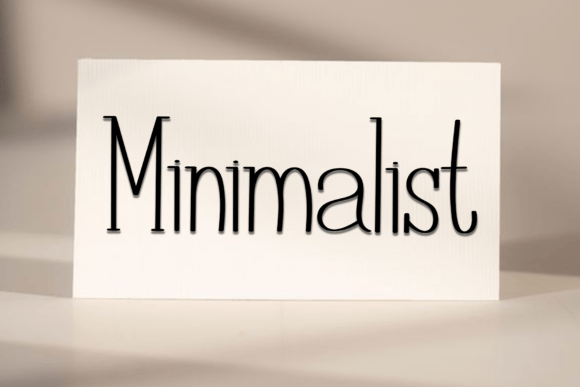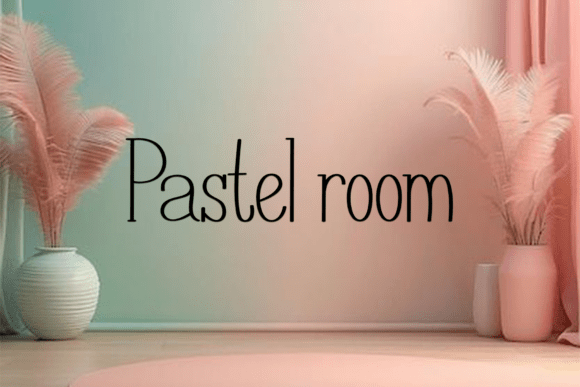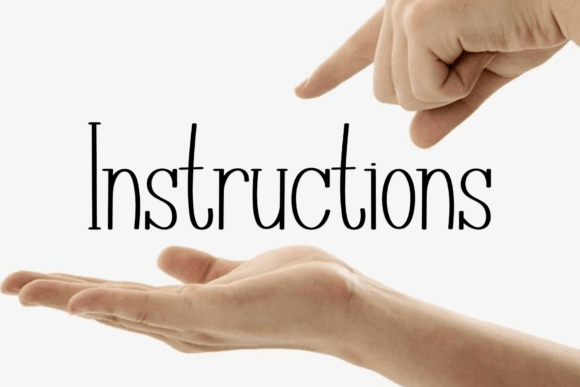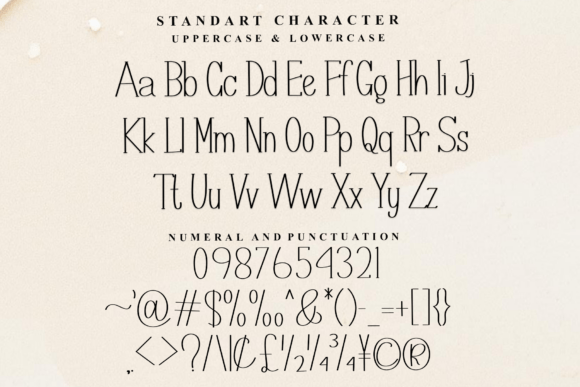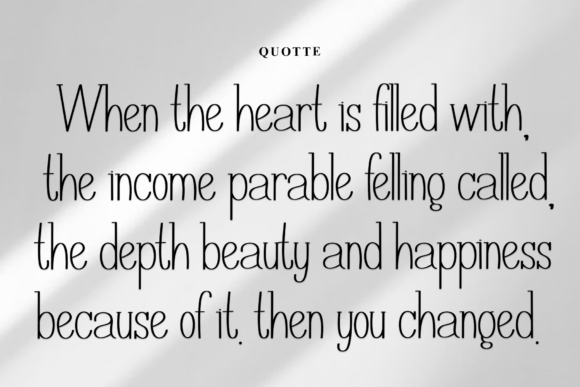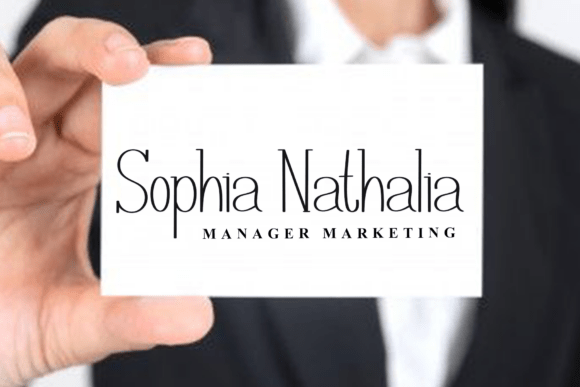
The Magic of Charming Font: Elevate Your Designs with Elegance
I’ll never forget the moment I stumbled upon the perfect font for a client’s wedding invitation project. I had been searching for hours, trying out different fonts, but none seemed to capture the essence of elegance and whimsy that I was looking for. That was until I discovered Charming Font. With its magical touch of elegance, this font turned my design from ordinary to extraordinary. In this article, I’ll share with you why Charming Font has become a staple in my design toolkit and how you can make the most of its beautiful features.
An Honest Review of Charming Font
- ✨ Elegant and refined, perfect for high-end designs
- ✅ Highly versatile, suitable for various design projects, from Instagram posts to calligraphy scripts
- 💫 Beautifully crafted with attention to detail, giving it a unique and sophisticated feel
- 🎨 Supports OpenType features, glyphs, and stylistic alternates, offering endless creative possibilities
While Charming Font is an exceptional font, there are a few minor quirks to be aware of:
- 🤔 Some characters may require manual kerning for optimal spacing
- ⚠️ Limited availability of Cyrillic and non-English language support
A Practical Guide to Using Charming Font
The Backstory of Charming Font
Charming Font was created with the goal of bringing a touch of magic and elegance to designers’ and crafters’ projects. Inspired by the art of calligraphy and the beauty of handwritten scripts, this font was carefully crafted to offer a unique and sophisticated feel. Whether you’re a professional designer or a creative hobbyist, Charming Font aims to help you turn your ideas into stunning works of art.
Q: What makes Charming Font unique?
A: Charming Font stands out due to its elegant and refined design, supporting OpenType features, glyphs, and stylistic alternates, which offer endless creative possibilities.
Q: Is Charming Font suitable for beginners?
A: Absolutely! Charming Font is easy to use and navigate, even for those new to design or calligraphy. Its intuitive features and extensive documentation make it accessible to creatives of all levels.